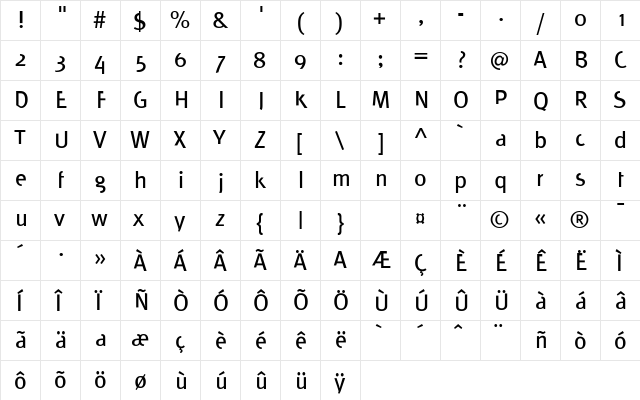
FoRYoU1 Regular
Design Context for FoRYoU1 Typeface
FoRYoU1 offers clean, dependable letterforms without strong stylistic allegiance, making it a practical choice for designers who need flexibility.